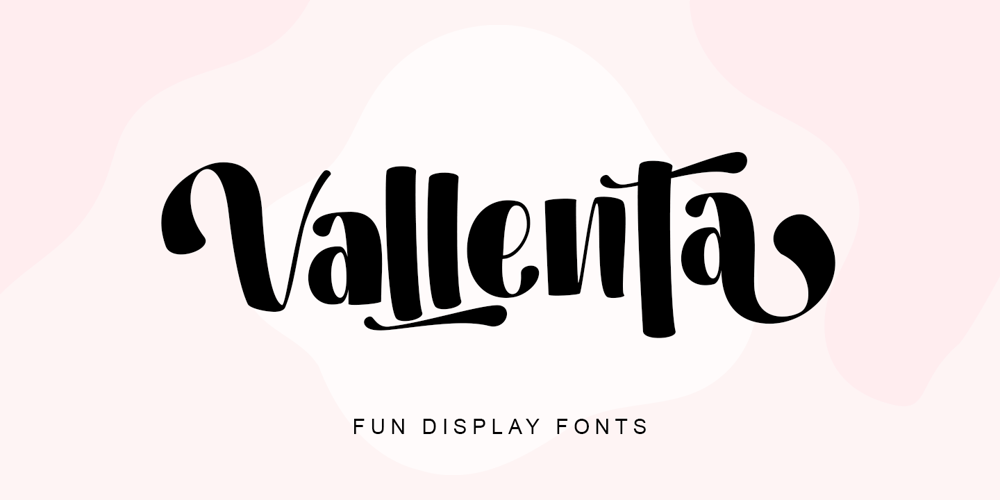
Vallenta Font Family was designed by Thomas Aradea and published by Letterara. Vallenta contains 2 styles and family package options. Vallenta is a bold script font that is simple and unique looking. This customizable font will look great on a variety of design ideas such as Christmas themes, valentine’s, posters, invitations, weddings, branding projects, social media posts, magazines, book covers, and more! This will add a fun and friendly touch to any of your projects! This font is PUA encoded which means you can access all glyphs and sweeps easily.